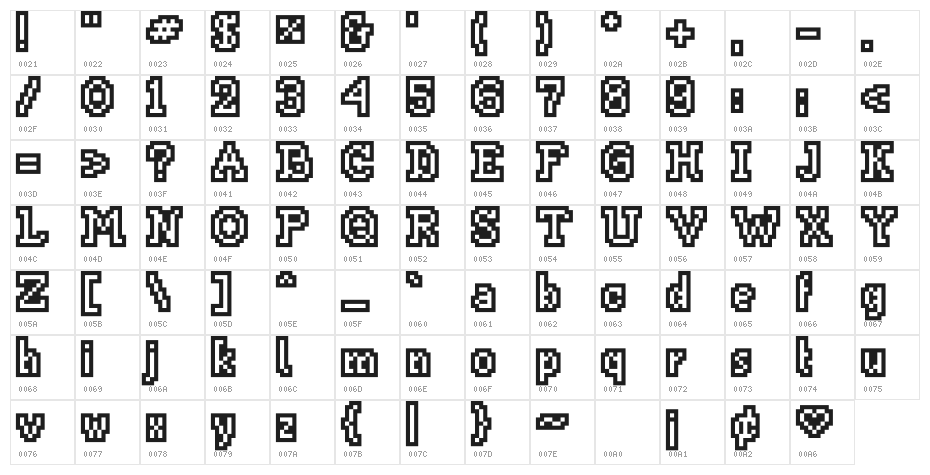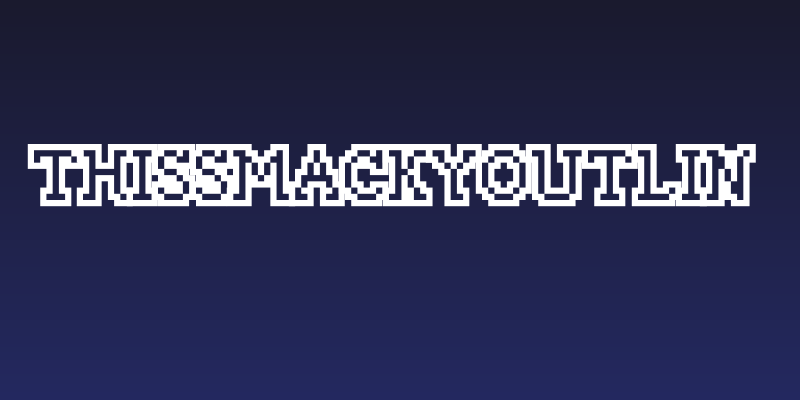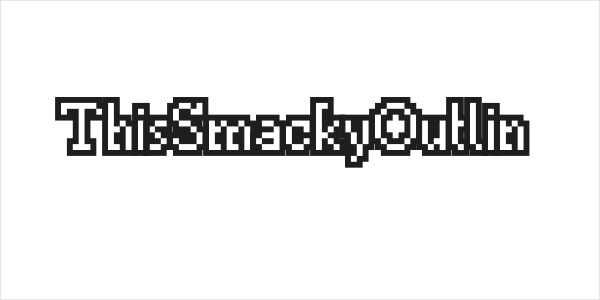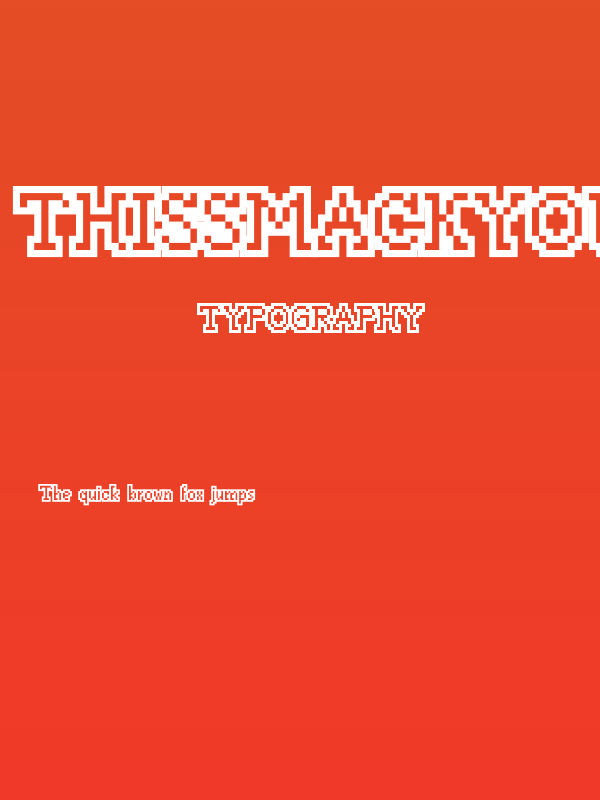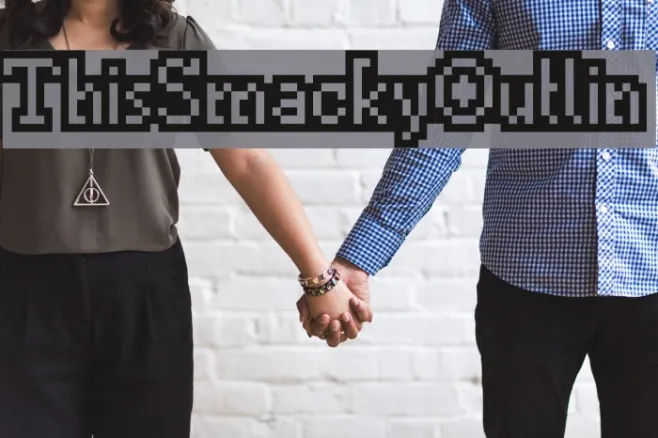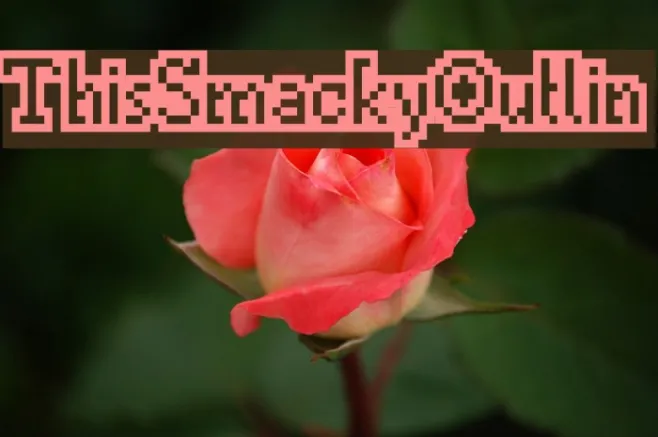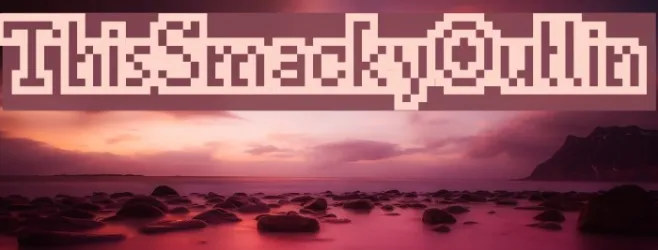
ThisSmackyOutlin Font
ThisSmackyOutlin Description
This font features a bold, pixelated outline style that gives it a distinct, retro digital appearance. The characters are constructed with a blocky, grid-like pattern, reminiscent of early video game graphics or digital displays. Each letter and number is outlined with a thick, uniform stroke that enhances its visibility and adds a playful, nostalgic feel. The uppercase and lowercase letters maintain consistent proportions, while the numerals and special characters follow the same design principles, ensuring a cohesive look across all glyphs. This font's unique style makes it stand out, ideal for projects that require a vintage or tech-inspired aesthetic.
| Proposed Projects | Ideal for video game design, retro-themed posters, digital art projects, and tech-related branding. |